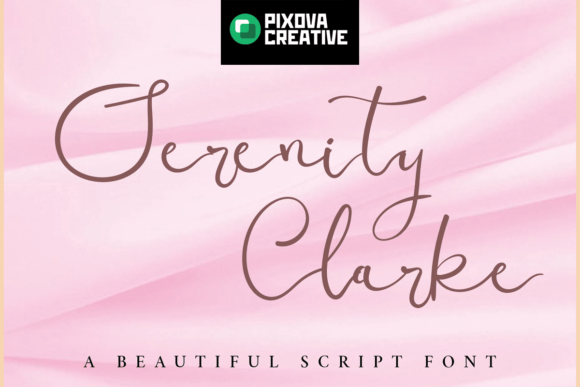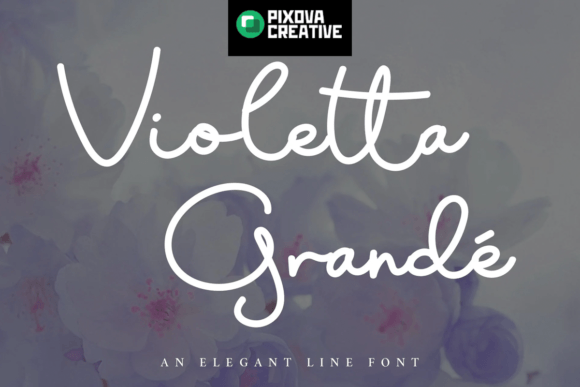
Introduction to Serenity Clarke X Violetta Grande Duo Font
Introducing Serenity Clarke and Violetta Grande, a charming font duo that captures the quintessence of exquisite cursive handwriting.
This dynamic duo offers a touch of sophistication to your works, whether it’s bridal invitations, love letters, or personalised messages Immerse yourself in the mesmerising fluidity, the harmonic blend of versatility and style, with Serenity Clarke and Violetta Grande.
Key Features of Serenity Clarke X Violetta Grande Duo Font
Why Choose Serenity Clarke X Violetta Grande Duo Font?
Serenity Clarke X Violetta Grande Duo Font offers exceptional quality and versatility, making it a valuable addition to your design toolkit. Whether you’re creating for personal projects or commercial use, Serenity Clarke X Violetta Grande Duo Font delivers professional results.